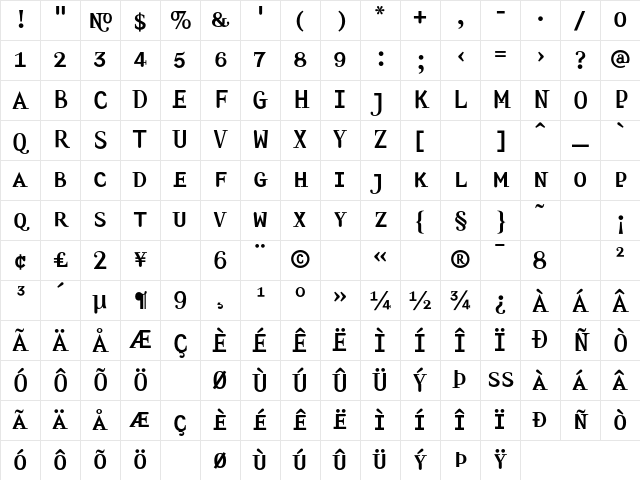
Complete Amplifier LightSmallCaps glyph index. Displaying only characters natively supported by Amplifier LightSmallCaps font.
Amplifier is a composed and adaptable typeface that performs quietly and consistently across a wide range of design contexts. Its slender proportions lend an understated elegance to any composition.